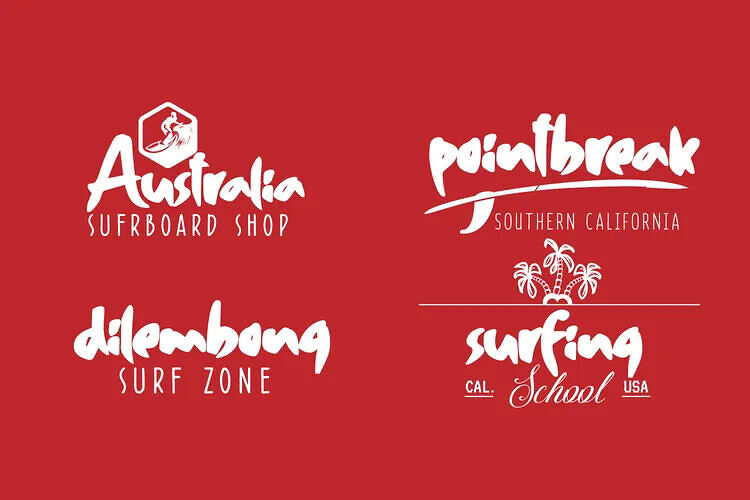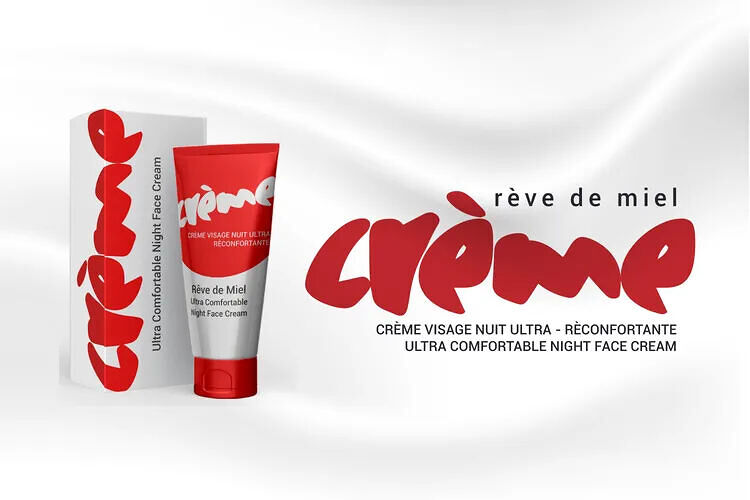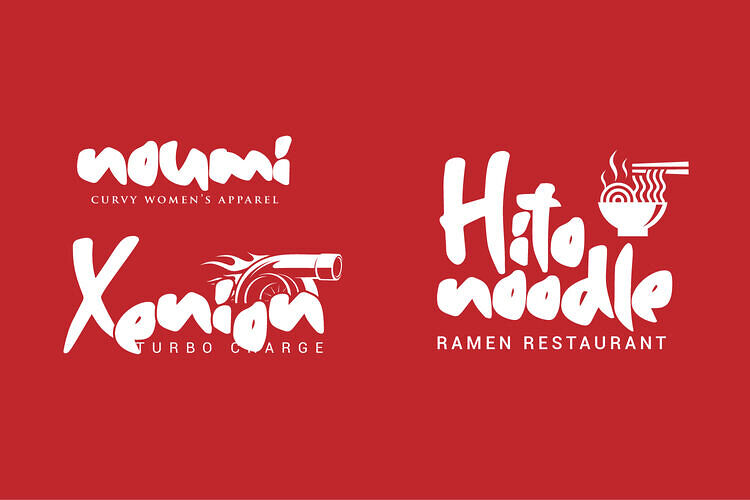
Hiroshima Font
Hiroshima Gyoshi is a handwritten font inspired by ancient Japanese calligraphy. The thick and random strokes look very prominent and play with negative space. You will feel the rhythm in irregularity.
Its casual charm makes it appear wonderfully down-to-earth, readable and, ultimately, incredibly versatile. This fantastic font is best suited for headlines of all sizes, as well as for blocks of text that have both maximum and minimum variations. Whether it’s for web, print, moving images or anything else – Hiroshima Gyoshi will look spectacular!